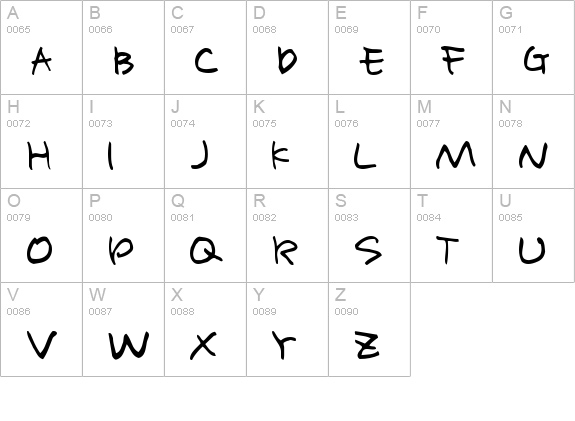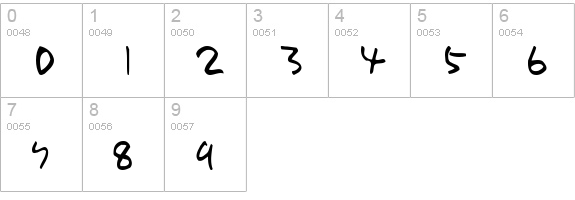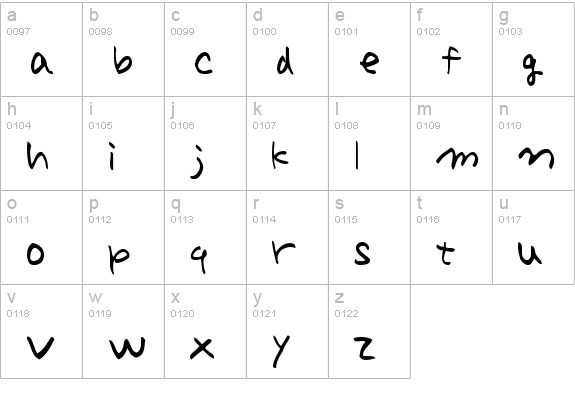
HolidayA Font Details
HolidayA font is a delightful and whimsical typeface that is perfect for adding a touch of playfulness to your projects. With its charming and unique design, HolidayA is sure to bring a festive and cheerful vibe to any design you use it in. The font features a mix of rounded and flowing shapes, giving it a friendly and approachable look. The best part about the HolidayA font is that it is completely free to download at FontsMarket.com. This means you can easily add this fun and lively font to your collection without any cost. Whether you're working on holiday-themed designs, greeting cards, invitations, or any other creative project, HolidayA font is a versatile choice that will surely make your text stand out. So go ahead and download HolidayA font today from FontsMarket.com and infuse your designs with a sense of fun and joy!